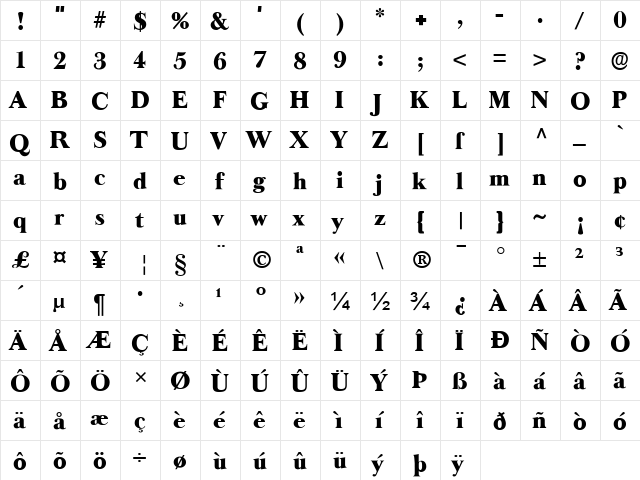
Long Island Antiqua Regular
Design Context for Long Island Antiqua Typeface
Long Island Antiqua takes a measured approach to typography — its balanced proportions and neutral character make it a reliable workhorse for both digital and print work.